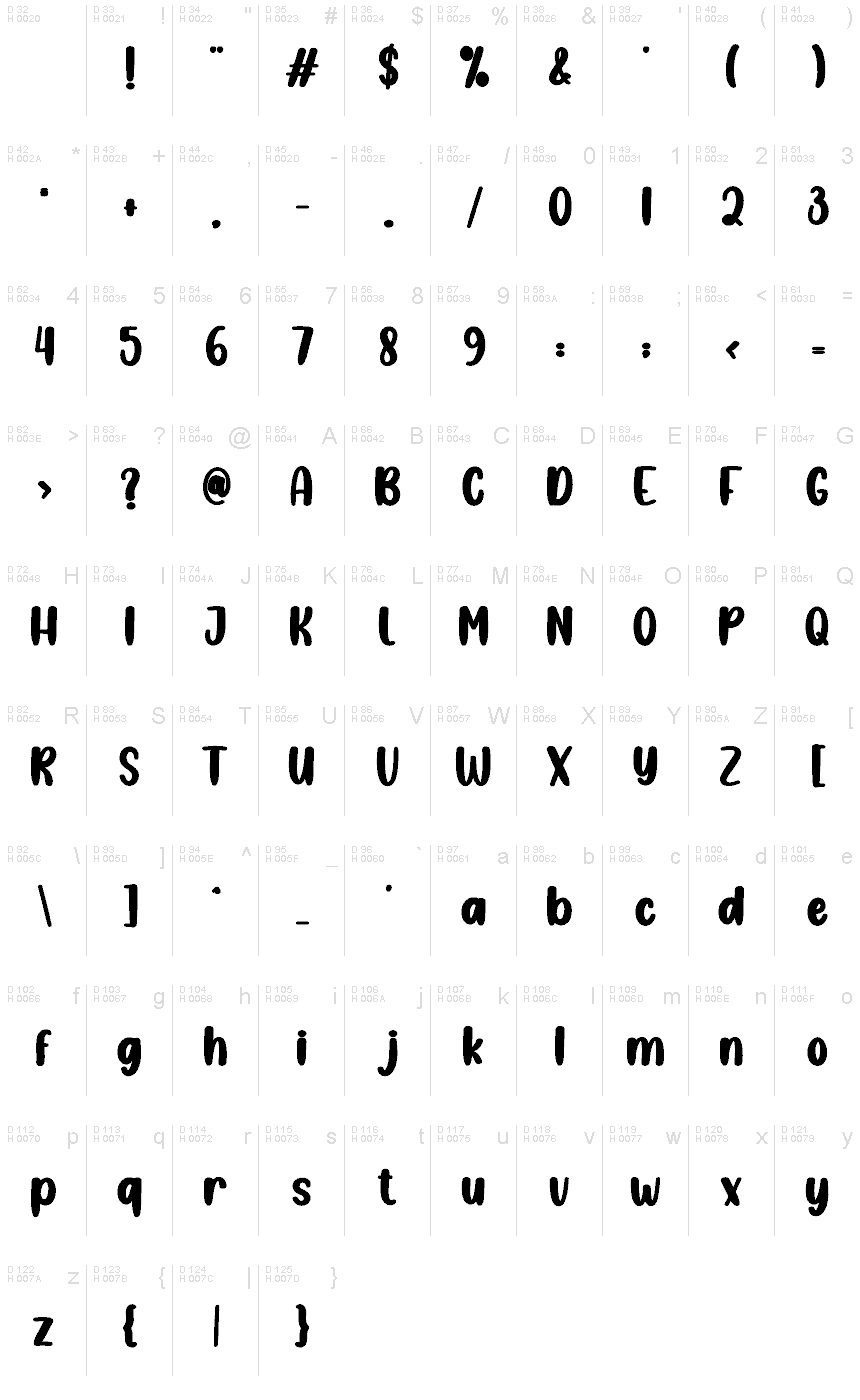
Barbie Mood
Barbie Mood font by Scratchones is a bold brush typeface with a playful aesthetic and nostalgic charm. Rounded elements give its structure an approachable vibe that’s perfect for both long and short texts. Designed with retro influences, the font succeeds in capturing viewers’ attention by forming artistic letters whose every curve follows the free-hand writing principles.